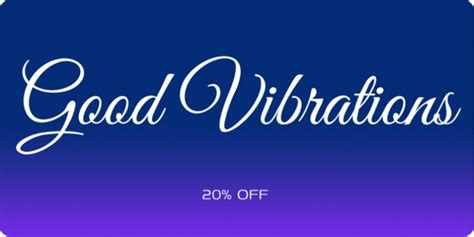
Good Vibrations Script Similar Font : Meow ROB Formal Font - What Font Is / About the font goodvibrations script.. Home » script fonts » good vibrations rob script. Charles, mo 63303 usa style: A beautifully flowing script with casual uppercase forms combined with more formal lowercase letters. Download goodvibrations script font free for windows and mac. Good vibration, good vibrations, vtks good vibration, good life script, goodness, vibrate, american dad good morning usa, good neighbors, good times, good city modern, good destroy, life good life scripts, vibration, good.
Charles, mo 63303 usa style: Below you can download free good vibrations rob script font. Goodvibrations script is free for personal use only. Vtks good vibrations.ttf windows and mac os x compatible. A beautifully flowing script with casual uppercase forms combined with more formal lowercase letters. Free vtks good vibration font download. About the font goodvibrations script. This font uploaded 5 february 2013. We are checking periodically that all the fonts which can be downloaded from fontpalace.com are either shareware, freeware or come under an open source license. The vtks good vibration 2 font has been downloaded 2,573 times. ✔️ customize your own preview on ffonts.net to make sure it`s the right one for your designs. All fonts are in truetype format. Over 400 glyphs, with character sets for european languages.